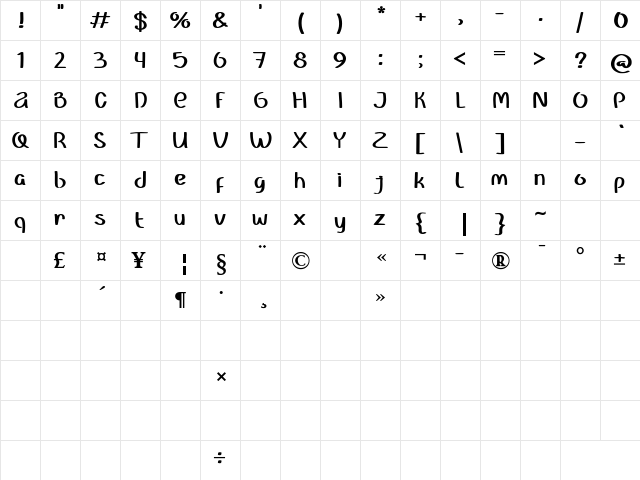
Natune Regular Font Preview
Natune Regular
Design Context for Natune Typeface
Natune offers clean, dependable letterforms without strong stylistic allegiance, making it a practical choice for designers who need flexibility.